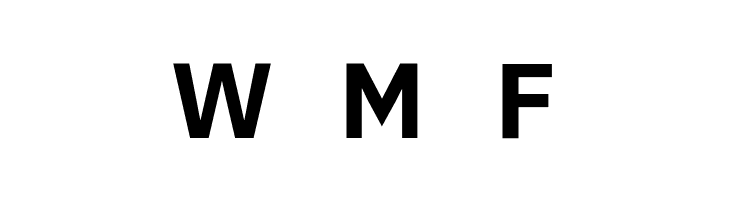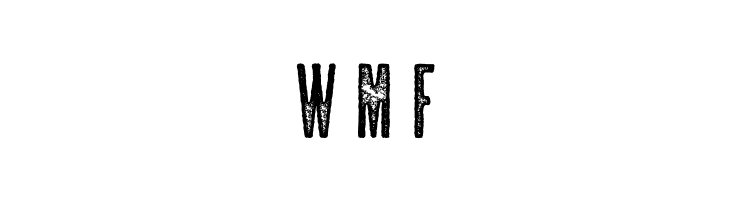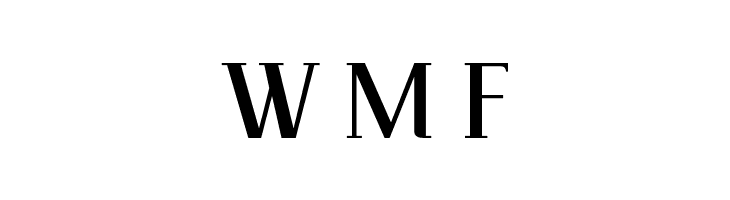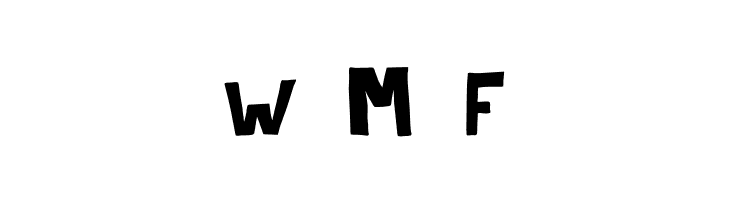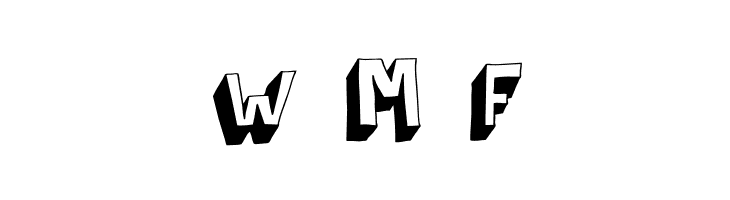
A bold, distressed font with a vintage, textured appearance.
A playful dashed line font with a casual and creative style.
A decorative dotted font with a modern and playful aesthetic.
A modern, geometric outline font with a futuristic and digital aesthetic.
A bold, modern font with clean lines and strong visual impact.
A bold, italic sans-serif font with a modern and dynamic style.
A clean, modern sans-serif monospaced font with low contrast and excellent readability.
A modern, monospaced italic typeface with clean lines and uniform spacing.
A modern serif font with elegant, refined letterforms and slight stroke contrast.
Bold, marker-style handwritten font with rounded, playful forms.
A bold, distressed font with a rugged, vintage aesthetic.
A bold, dynamic font with a three-dimensional effect and angular edges.
A playful, hand-drawn font with bold, irregular letterforms.
A playful 3D block font with a hand-drawn, artistic style.
A playful, hand-drawn font with a quirky, doodle-like style.
A bold, modern font with a dynamic and elegant style.
A modern italic font with clean lines and smooth curves.
A whimsical and artistic display font with pictorial elements in each character.
A modern sans-serif font with a clean, geometric style.
A modern, geometric font with clean lines and a minimalist design.
A futuristic, geometric font with angular, segmented letterforms.
A futuristic, geometric font with sharp angles and a bold design.
A clean, rounded sans-serif font with excellent readability and a friendly appearance.
A bold, textured font with a distressed, vintage appearance.
A playful, hand-drawn script font with fluid, connected characters.
A classic serif font with a balanced and elegant appearance, ideal for traditional and sophisticated designs.
A playful, rounded, and handwritten-style font with smooth curves.